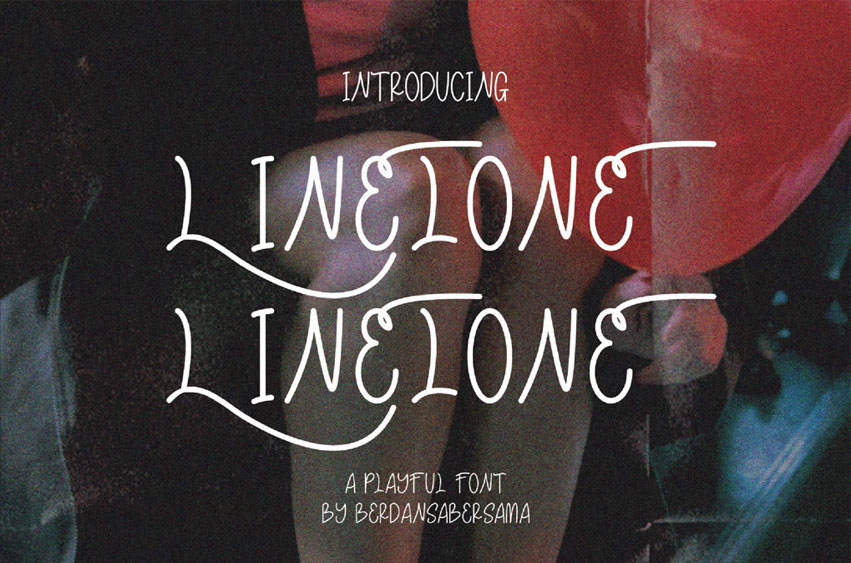
Linelone Font
Linelone Font is a whimsical, fluid script font that combines playful strokes and fluid curves, giving it a lively, energetic vibe.
Its looping lines and soft curves create a sense of movement, making it perfect for creative, fun projects.